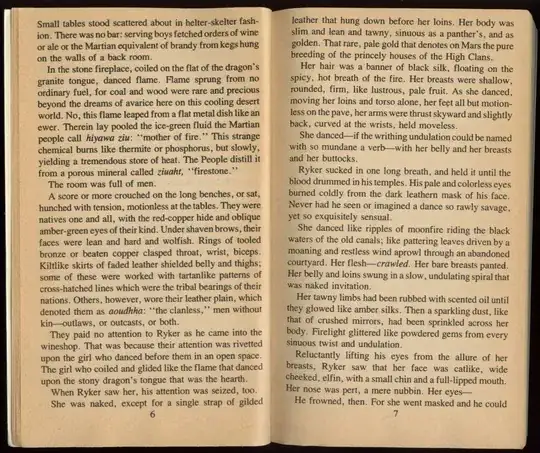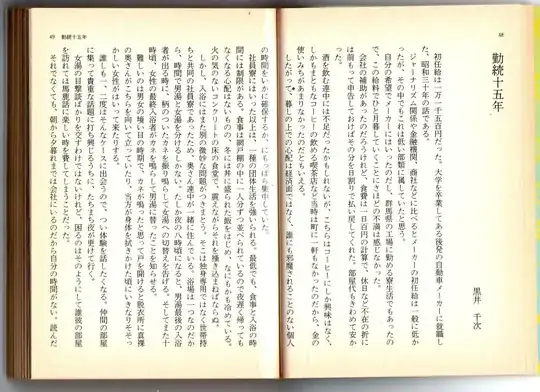
What size of type is commonly used in Japanese books, magazines, or in blocks of online text? Since there is unlikely to one single size, I'd welcome an answer that either gave a rough range or listed a couple specific examples from major presses, newspapers, or websites.
(I am asking because I'm curious about whether the complexity of kanji leads to larger type than the type sizes that are standard for works produced with roman letters.)
Typical main text of a paperback targeted to adults uses a font size between 8 and 9 pt. Most newspapers use 8.6 pt (≒3 mm). In footnotes or such, as small as 5 pt is possible.
Websites use larger fonts. Condensed pages like Yahoo! home use 12px (9pt), but most recent sites prefer 16px (12pt) or so for main text. From what I understand, most global websites (like Twitter) use the same font-size setting for their Japanese and English versions.
The smallest font size which is practically readable is 9 pixels (this was common in the Windows 3.1 / Mac OS 6 era), but there is even a 7 pixel font.
Ordinary publications use fonts around 11Q to 16Q big for main text. The unit Q (級) is the standard measure in Japanese typesetting industry, being 1/4 length of a millimeter (Q is from Quarter). Thus 11Q = 2.75mm ~ 7.8pt, 16Q = 4mm ~ 11.4pt. The default font size of MS Word is set to 10.5pt in Japan.
Actually, since Japanese characters don't have ascenders and descenders like European letters, each letter is designed to cover up almost full body height, so that they usually look one or two sizes larger than European ones with the same nominal size. In exchange, we tend to need taller line spacing than European books. Optimal line height is 166% (123) to 200% of the font size. Compare page layouts of a Japanese and an American paperback.
The websites usually prefer slightly larger fonts than Western average if possible, because of the pixel density matter. For example, current text font-size and line-height of Japanese WP are set to 15.1px/24.2px while the English version is 14px/22.4px.